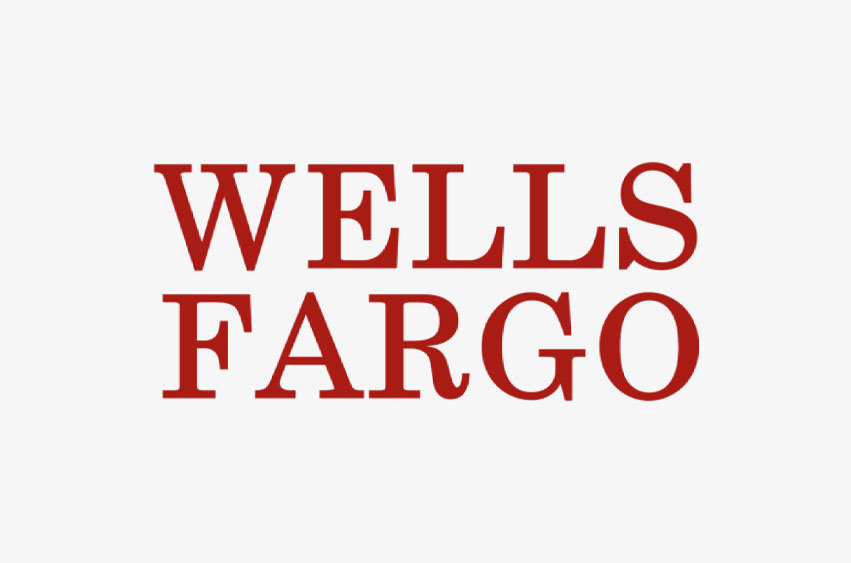
Wells Fargo Font
Wells Fargo Font Wells Fargo Bank Holding was named after its co-founders Henry Wells and William Fargo. These men established the foundation of Wells Fargo with the founding of an financial and postal company in 1852; later merging with Norwest at that time in 1998. Wells Fargo became one of the “parent” organizations for numerous modern services; setting up ATMs at supermarkets and stores, developing standard customer service models, pioneering internet banking in America which allowed cardholders to remotely monitor progress of accounts etc.
“Claredon” is the font used in the Wells Fargo logo and it resembles Clarendon which is an English slab-serif font designed by Robert Besley in 1845.